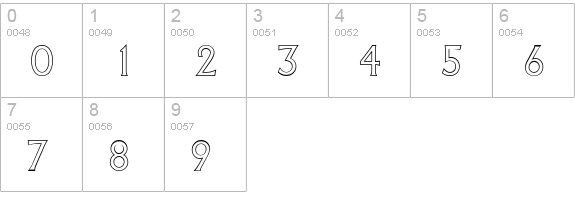
AdelonOutline-Light-Regular is a refined, elegant variant in the AdelonOutline typeface family \xE2\x80\x94 well suited to elegant body text, refined sub-headings, and luxury branding.
AdelonOutline-Light-Regular font is a modern and elegant typeface that exudes sophistication and style. Its clean lines and sleek design make it perfect for a variety of design projects, from branding to editorial design. This font is versatile and can be used for both headings and body text, adding a touch of finesse to any project. The AdelonOutline-Light-Regular font is available for free download at FontsMarket.com, making it accessible to designers and creatives looking to elevate their work with a high-quality typeface. With its light weight and subtle outline effect, this font is sure to make a statement while maintaining a sense of refinement and professionalism. Whether you're working on a website, poster, magazine layout, or any other design project, the AdelonOutline-Light-Regular font is a great choice for adding a touch of sophistication and elegance. Download it for free today and see how it can enhance your designs!